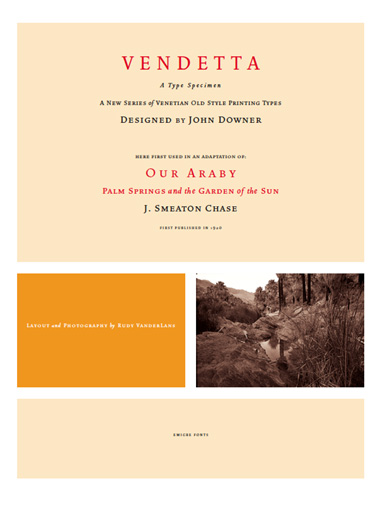
By John Downer
The famous roman type cut in Venice by Nicolas Jenson, and used in 1470 for his printing of the tract, De Evangelica Praeparatione, Eusebius, has usually been declared the seminal and definitive representative of a class of types known as Venetian Old Style. The Jenson type is thought to have been the primary model for types that immediately followed. Subsequent 15th-century Venetian Old Style types, cut by other punchcutters in Venice and elsewhere in Italy, are also worthy of study, but have been largely neglected by 20th-century type designers.
There were many versions of Venetian Old Style types produced in the final quarter of the quattrocento. The exact number is unknown, but numerous printed examples survive, though the actual types, matrices, and punches are long gone. All these types are not, however, conspicuously Jensonian in character. Each shows a liberal amount of individuality, inconsistency, and eccentricity.
My fascination with these historical types began in the 1970s and eventually led to the production of my first text typeface, Iowan Old Style (Bitstream, 1991). Sometime in the early 1990s, I started doodling letters for another Venetian typeface. The letters were pieced together from sections of circles and squares. The n, a standard lowercase control character in a text typeface, came first. Its most unusual feature was its head serif, a bisected quadrant of a circle. My aim was to see if its sharp beak would work with blunt, rectangular, foot serifs. Next, I wanted to see if I could construct a set of capital letters by following a similar design system.
Rectangular serifs, or what we today call "slab serifs," were common in early roman printing types, particularly text types cut in Italy before 1500. Slab serifs are evident on both lowercase and uppercase characters in roman types of the Incunabula period, but they are seen mainly at the feet of the lowercase letters. The head serifs on lowercase letters of early roman types were usually angled. They were not arched, like mine. Oddly, there seems to be no actual historical precedent for my approach.
Another characteristic of my arched serif is that the side opposite the arch is flat, not concave. Arched, concave serifs were used extensively in early italic types, a genre which first appeared more than a quarter century after roman types. Their forms followed humanistic cursive writing, common in Italy since before movable type was used there. Initially, italic characters were all lowercase, set with upright capitals (a practice I much admire and would like to see revived). Sloped italic capitals were not introduced until the middle of the sixteenth century, and they have very little to do with the evolution of humanist scripts.
In contrast to the cursive writing on which italic types were based, formal book hands used by humanist scholars to transcribe classical texts served as a source of inspiration for the lowercase letters of the first roman types cut in Italy. While book hands were not as informal as cursive scripts, they still had features which could be said to be more calligraphic than geometric in detail. Over time, though, the copied vestiges of calligraphy virtually disappeared from roman fonts, and type became more rational. This profound change in the way type developed was also due in part to popular interest in the classical inscriptions of Roman antiquity. Imperial Roman letters, or majuscules, became models for the capital letters in nearly all early roman printing types.
So it was, that the first letters in my typeface arose from pondering how shapes of lowercase letters and capital letters relate to one another in terms of classical ideals and geometric proportions, two pinnacles in a range of artistic notions which emerged during the Italian Renaissance. Indeed, such ideas are interesting to explore, but in the field of type design they often lead to dead ends. It is generally acknowledged, for instance, that pure geometry, as a strict approach to type design, has limitations. No roman alphabet, based solely on the circle and square, has ever been ideal for continuous reading. This much, I knew from the start.
In the course of developing my typeface for text, innumerable compromises were made. Even though the finished letterforms retain a measure of geometric structure, they were modified again and again to improve their performance en masse. Each modification caused further deviation from my original scheme, and gave every font a slightly different direction. In the lower case letters especially, I made countless variations, and diverged significantly from my original plan. For example, not all the arcs remained radial, and they were designed to vary from font to font. Such variety added to the individuality of each style. The counters of many letters are described by intersecting arcs or angled facets, and the bowls are not round. In the capitals, angular bracketing was used practically everywhere stems and serifs meet, accentuating the terseness of the characters. As a result of all my tinkering, the entire family took on a kind of rich, familiar, coarseness - akin to roman types of the late 1400s.
In his book, Printing Types D. B. Updike wrote: "Almost all Italian roman fonts in the last half of the fifteenth century had an air of "security" and generous ease extremely agreeable to the eye. Indeed, there is nothing better than fine Italian roman type in the whole history of typography."
It does seem a shame that only in the 20th century have revivals of these beautiful types found acceptance in the English language. For four centuries (circa 1500 - circa 1900) Venetian Old Style faces were definitely not in favor in any living language. Recently, though, reinterpretations of early Italian printing types have been returning with a vengeance. The name Vendetta, which as an Italian sound I like, struck me as being a word that could be taken to signifiy a comeback of types designed in the Venetian style.
In closing, I should add that a large measure of Vendetta's overall character comes from a synthesis of ideas, old and new. Hallmarks of roman type design from the Incunabula period are blended with contemporary concerns for the optimal display of letterforms on computer screens. Vendetta is thus not a historical revival. It is instead an indirect but personal digital homage to the roman types of punchcutters whose work was influenced by the example Jenson set in 1470.